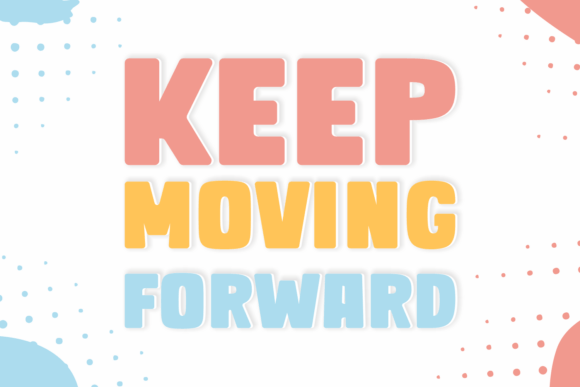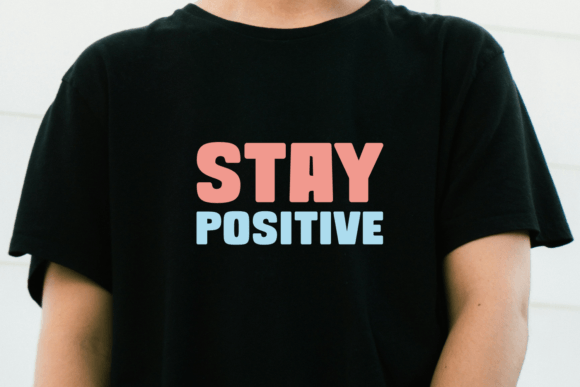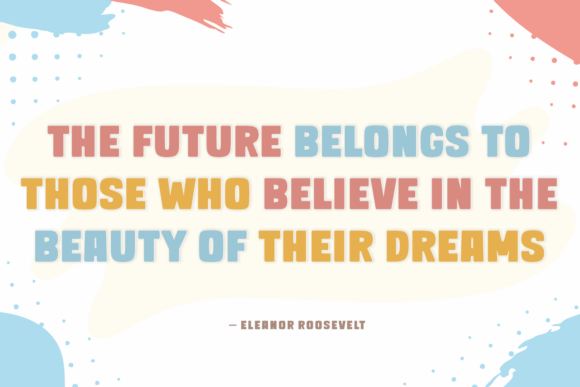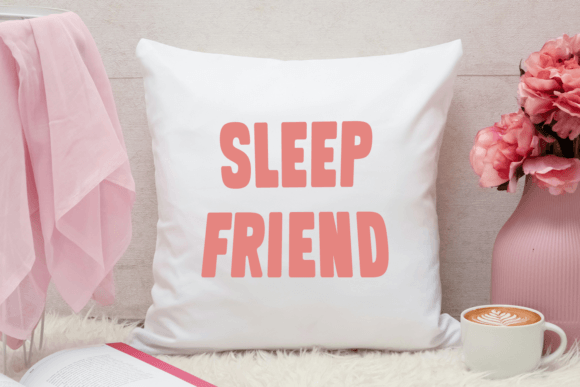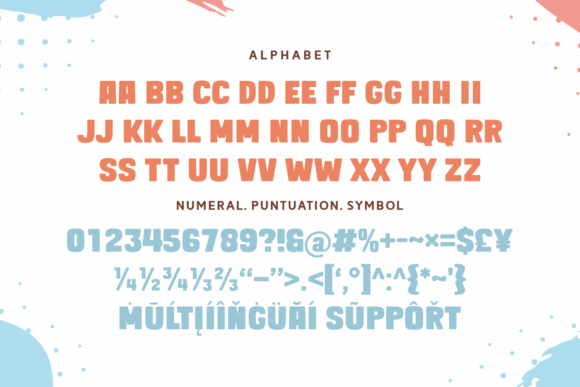
Dreams Develop Font: Bringing Your Creative Visions to Life
Have you ever been brainstorming ideas for a project, and suddenly, a spark of creativity hits you? The words start flowing, and you know exactly what you want to convey. That’s the magic of creative expression. As designers, we’ve all been there – seeking the perfect tool to bring our vision to life.
That’s where Dreams Develop Font comes in – a bold, display font designed to grab attention and make your words stand out. With strong, thick letters, it’s perfect for posters, headlines, and anything that needs a big, eye-catching look. Whether you’re a seasoned pro or just starting out, Dreams Develop Font is a valuable addition to your design toolkit.
Dreams Develop Font Key Features
- Font Family: Dreams Develop Font offers a unique, modern sans-serif font family with 12 styles, including regular, italic, bold, and bold italic.
- Character Set: Supports a wide range of languages, including Latin, Cyrillic, and Greek alphabets, with over 1,000 glyphs and 200 ligatures.
- Unique Characteristics: Dreams Develop Font features a distinctive rounded corner design, with subtle rounded edges and a clean, minimalist aesthetic.
Dreams Develop Font Review
I recently had the chance to work with the Dreams Develop Font, and I’m here to give you my honest review.
- The Dreams Develop Font has a beautiful, modern design that’s perfect for creative projects.
- The font is highly legible, even at smaller sizes, making it ideal for body text.
- The font family includes a range of weights and styles, giving you plenty of options for customization.
- The Dreams Develop Font lacks a bit of character in its uppercase letters, making it less suitable for headings.
- The font doesn’t support some of the more exotic languages, which might be a limitation for international projects.
Overall, I’m impressed with the Dreams Develop Font, but it’s not perfect. It’s a great choice for creative projects, but you might need to supplement it with other fonts for certain tasks. With a bit more development, I think this font could really shine.
Getting the Most Out of Dreams Develop Font
To get the most out of Dreams Develop Font, use it in combination with other design elements to create a unique and eye-catching visual identity.
Experiment with different font sizes, colors, and styles to find the perfect balance for your project.
Common Use Cases for Dreams Develop Font
Dreams Develop Font is suitable for a variety of projects, including:
Logo design
Branding
Marketing materials
Web design
Alternatives to Dreams Develop Font for Designers
The Dreams Develop Font is a popular choice among designers, but there are other alternatives that offer unique features and styles. Here are a few options to consider:
Open Sans is a modern sans-serif font that is highly legible and versatile. It’s great for body text, headings, and titles, and is suitable for a wide range of applications, from digital products to print materials. Unlike Dreams Develop Font, Open Sans has a more neutral tone and is not as dramatic in its design.
Montserat is a geometric sans-serif font that is inspired by the urban environment of Buenos Aires. It’s great for headings and titles, and is perfect for designs that require a strong, modern look. Compared to Dreams Develop Font, Montserrat has a more rugged and edgy feel, making it ideal for bold and eye-catching designs.
Lato is a modern sans-serif font that is highly customizable and versatile. It’s great for body text, headings, and titles, and is suitable for a wide range of applications, from digital products to print materials. Unlike Dreams Develop Font, Lato has a more delicate and elegant tone, making it ideal for designs that require a touch of sophistication.
Q: What is the recommended font size for Dreams Develop Font?
The recommended font size for Dreams Develop Font is between 12-24 points, depending on the application and design context. For body text, 14-16 points is a good starting point. For headings, 24-36 points is recommended.